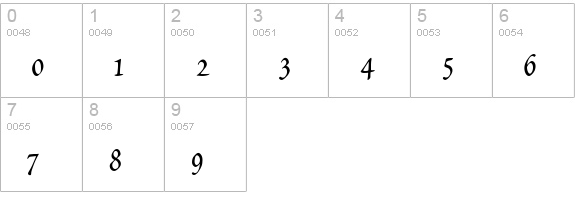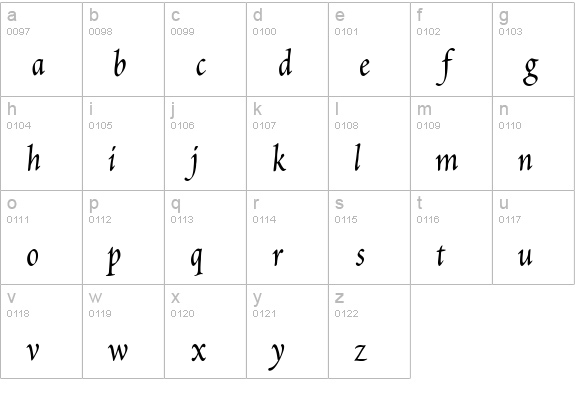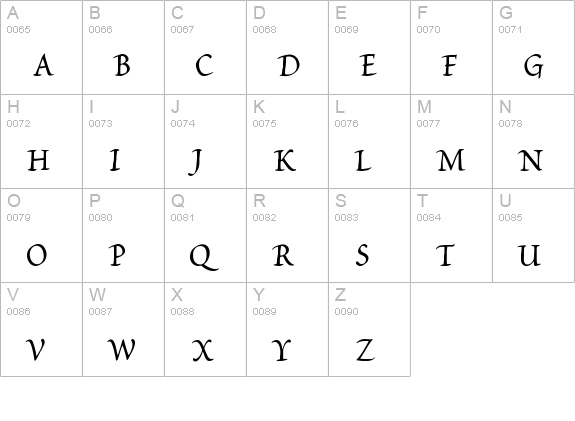
Petitscript Font Details
Introducing Petitscript, a whimsical and charming font that will add a touch of playfulness to any project. With its delicate curls and playful curves, Petitscript is perfect for adding a unique and personal touch to invitations, greeting cards, logos, and more. But what sets Petitscript apart from other fonts is that it is not only beautiful but also free. Yes, you read that right – Petitscript is freely available to download at FontsMarket.com. Now, you can enjoy the beauty and versatility of this font without breaking the bank. Whether you're a professional designer or a casual enthusiast, Petitscript is sure to inspire your creativity. Its graceful strokes and flowing lines will bring a sense of whimsy and joy to your designs. From wedding invitations to birthday cards, Petitscript will effortlessly capture the essence of any occasion. With its wide range of characters, including both uppercase and lowercase letters, numbers, and punctuation marks, Petitscript offers endless possibilities for creating stunning and eye-catching designs. Its versatility makes it perfect for a variety of projects, from branding and packaging to social media graphics and website design. So why wait? Download Petitscript today and let your creativity soar. Whether you're designing for personal or commercial use, this font will be a valuable addition to your font library. And with it being freely available to download at FontsMarket.com, there's no reason not to give it a try. Get ready to add a touch of whimsy and charm to your designs with Petitscript.